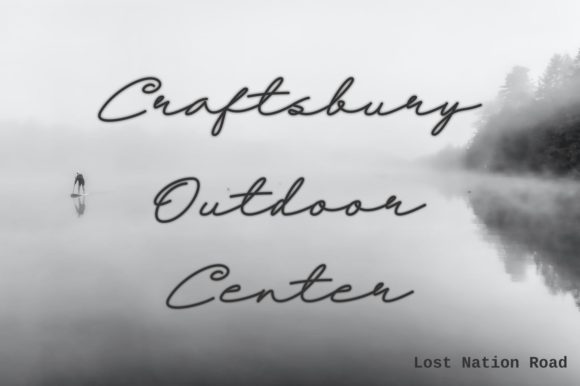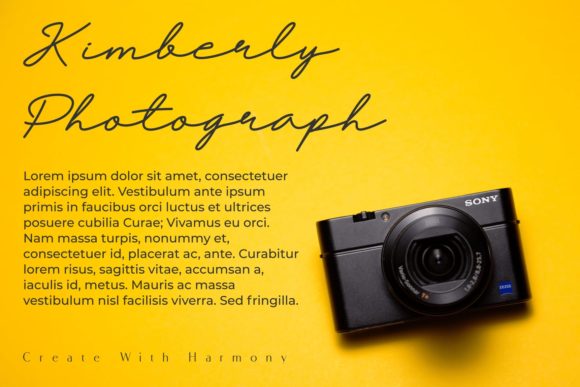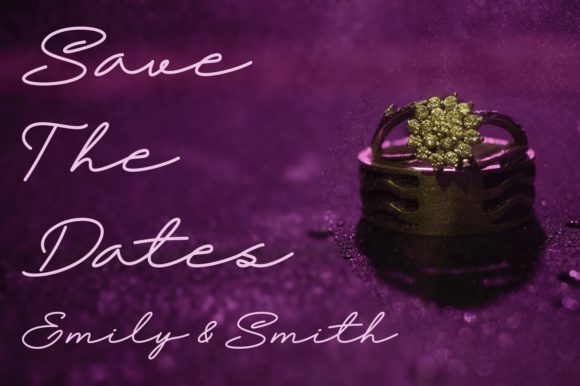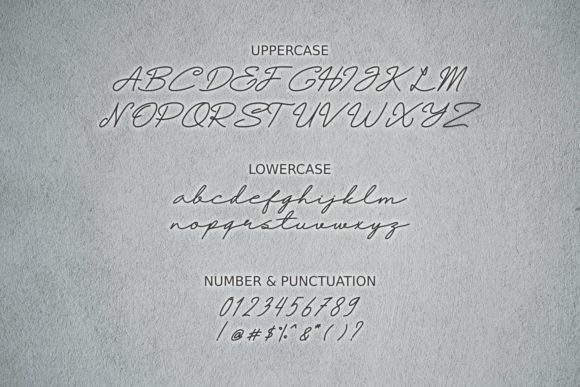
Introducing Harmony Font: Elevate Your Designs with Elegance and Sophistication
Are you a designer or crafter looking for a font that exudes class, elegance, and modernity? Look no further than Harmony Font, a stunning signature script font that is sure to elevate your designs to the next level. With its well-balanced and beautiful aesthetic, Harmony Font is perfect for a wide range of applications, from logos and branding to invitations, stationery, and wedding designs.
A Classy, Elegant, and Modern Look
Harmony Font boasts a classy, elegant, and modern look that is sure to impress. Its sophisticated design makes it ideal for designers and crafters who want to add a touch of luxury to their work. Whether you’re creating a logo, branding materials, or social media posts, Harmony Font is the perfect choice. Its modern aesthetic ensures that your designs will stand out from the crowd and leave a lasting impression.
Versatile and Multifaceted
One of the best things about Harmony Font is its versatility. It’s a multifaceted font that can be used for a wide range of applications, including:
- Invitations and stationery
- Wedding designs and decorations
- Website titles and headings
- And much more!
Key Features of Harmony Font
So, what makes Harmony Font so special? Here are some of its key features:
- Well-balanced and beautiful design: Harmony Font is carefully crafted to ensure that it’s visually appealing and harmonious.
- Classy, elegant, and modern look: This font exudes sophistication and luxury, making it perfect for high-end designs.
- Signature script style: Harmony Font features a beautiful signature script style that’s perfect for adding a personal touch to your designs.
- Multifaceted and versatile: This font can be used for a wide range of applications, from logos to social media posts.
Why Choose Harmony Font?
With so many fonts to choose from, why should you choose Harmony Font? Here are just a few reasons:
- Stand out from the crowd: Harmony Font is a unique and distinctive font that’s sure to make your designs stand out.
- Elevate your brand: With its classy and elegant design, Harmony Font is perfect for businesses and individuals who want to elevate their brand.
- High-quality design: Harmony Font is carefully crafted to ensure that it’s of the highest quality, with beautiful swashes and ligatures.
In conclusion, Harmony Font is a stunning signature script font that’s perfect for designers and crafters who want to add a touch of elegance and sophistication to their work. With its well-balanced and beautiful design, classy and modern look, and multifaceted versatility, Harmony Font is sure to elevate your designs to the next level. So why wait? Try Harmony Font today and see the difference for yourself!